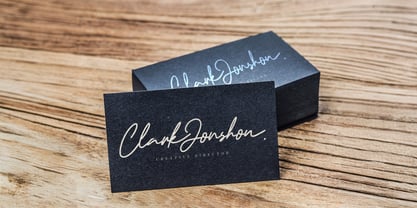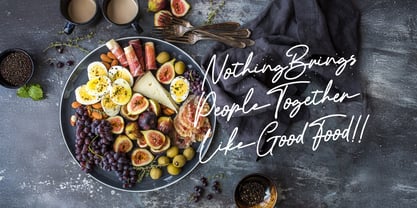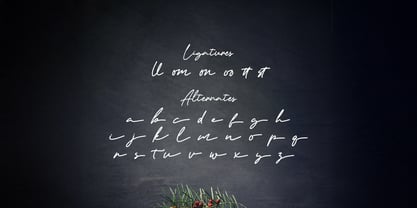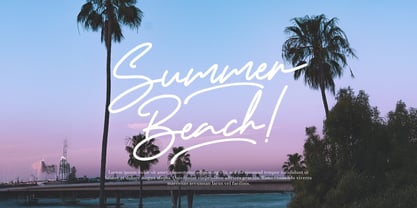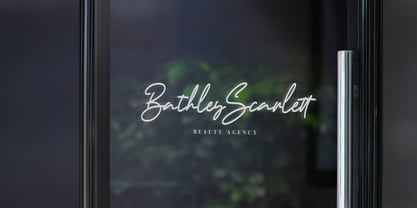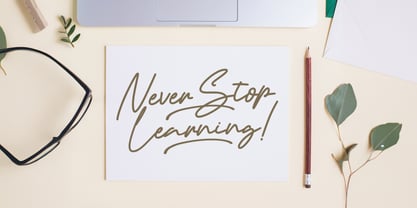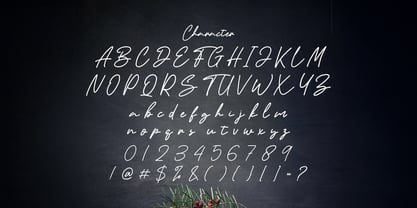
Artemay Bright
by Stringlabs Creative Studio
The Artemay Bright Font Family was designed by Virgiawan Listanto and published by Stringlabs Creative Studio. Artemay Bright contains 1 styles. More about this family
Artemay Bright is a sleek Signature Script Font crafted for elegance, style, and modern sophistication. With its flowing strokes and natural handwritten rhythm, Artemay Bright captures the essence of a personal signature perfect for adding a refined, custom feel to your designs. Whether you're creating high-end branding, feminine logos, fashion labels, or stylish social media content, Artemay Bright delivers that luxurious handwritten touch with effortless grace.